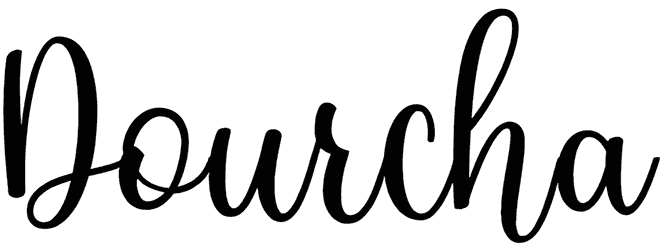
Dourcha Font
By using the Durcha font, users can easily achieve a beautifully handwritten look in only a few minutes of hassle-free customization. When you use this pretty flower and girly font, it will bring joy to any logo designs, movie titles, or headers.
Durcha is a unique script font designed for creative professionals who value standing out from the crowd. You probably don’t want to wait any longer, so try it out now!